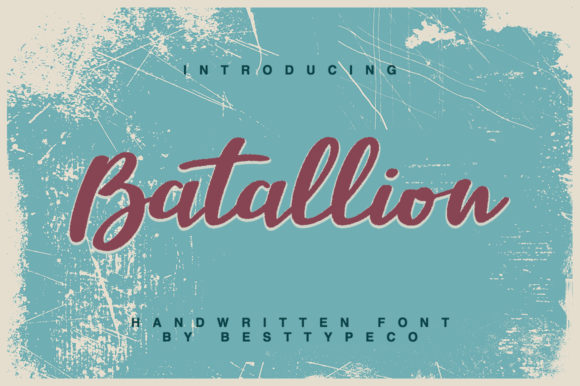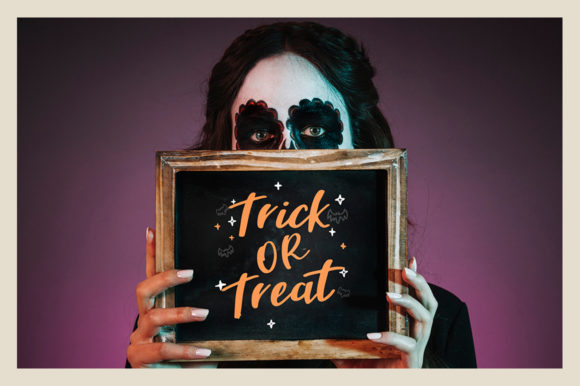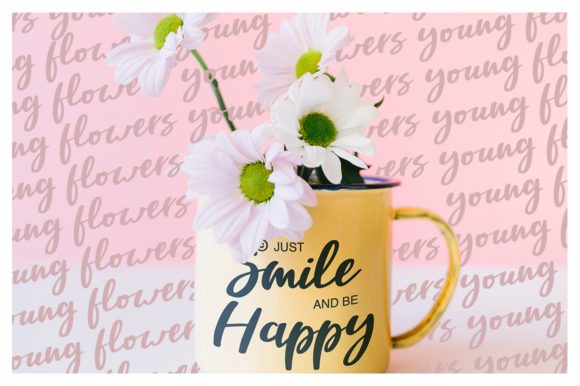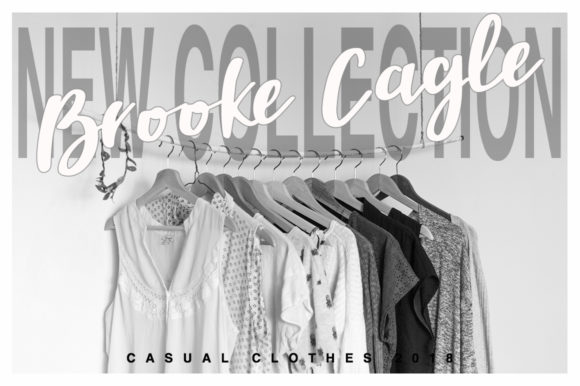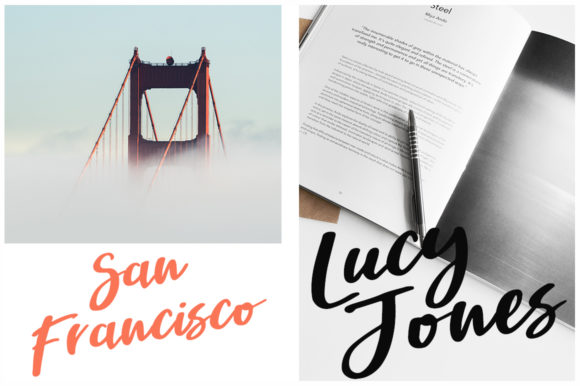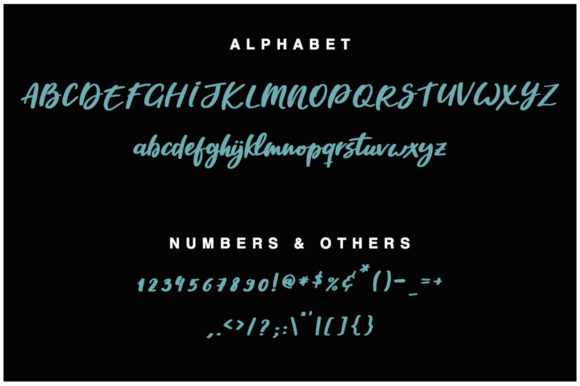
Batallion Font
About Batallion Font
Batallion is a brushed handwritten font, created to stand out. Masterfully designed to become a true favorite, this font has the potential to bring each of your creative ideas to the highest level!